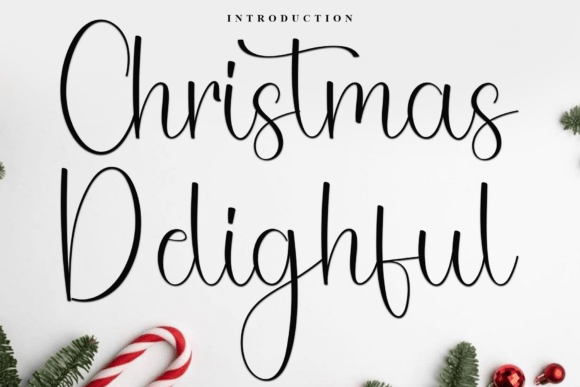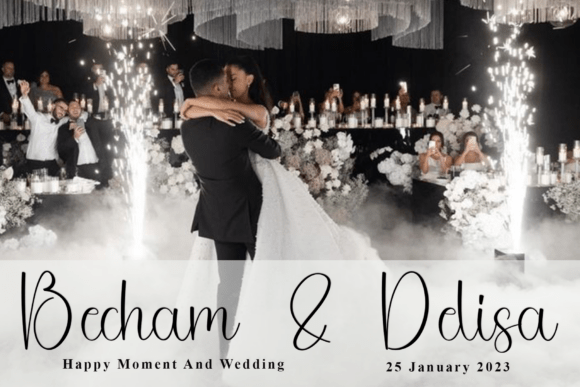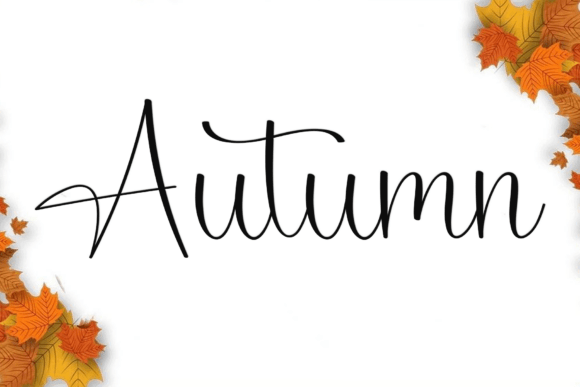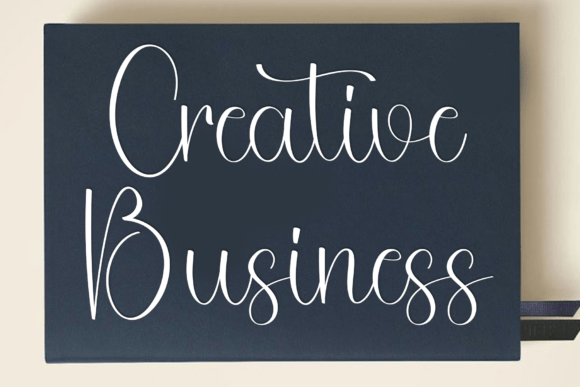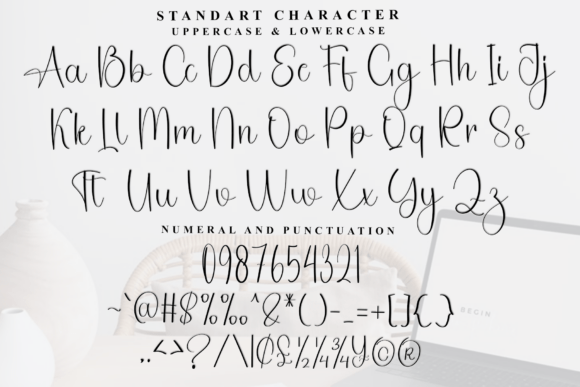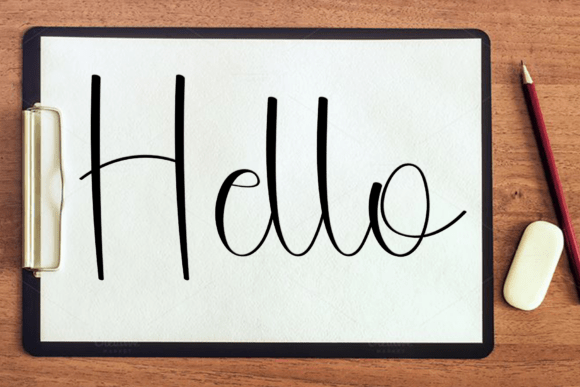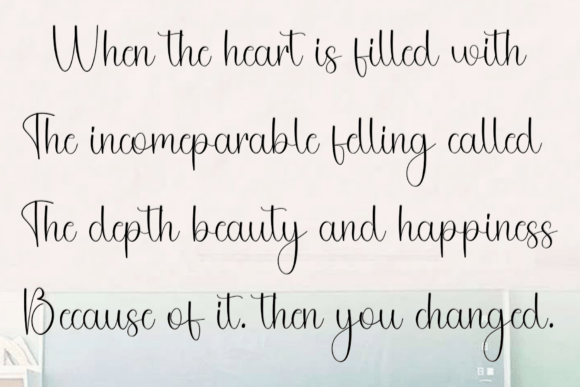
Get Ready to Spread Holiday Cheer with the Christmas Delighful Font
As the snowflakes start to fall and the festive lights twinkle around us, there’s something magical about the holiday season. You’re probably brainstorming ideas for your Christmas card design, gift tags, or maybe even a festive social media post. The right font can make all the difference in capturing the essence of this special time of year. This is where the Christmas Delighful Font comes in – a beautiful and eye-catching typeface that will add a touch of warmth and personality to your creations.
This versatile font is designed to be meaningful and easy to use, making it perfect for designers who want to add a unique touch to their projects. With its distinctive strokes and natural style, the Christmas Delighful Font is sure to be a hit with audiences across different artistic and creative fields.
Christmas Delighful Font Key Features
- Unique Characteristics: The Christmas Delighful Font features a unique blend of traditional and modern design elements, including intricate patterns, ornaments, and festive motifs, making it perfect for holiday-themed designs.
- Font Style: The font is available in a single style, but it offers a range of weights and ornaments, allowing users to create a wide variety of designs and effects.
Designer Review: Christmas Delighful Font
I was excited to dive into the Christmas Delighful Font, and overall, I was not disappointed. Here’s a breakdown of what works well and what could be improved.
- The font’s festive feel is perfect for holiday-themed projects. The designer has successfully captured the essence of Christmas in this font.
- The variety of characters, including ornaments and decorations, adds a nice touch to the overall design.
- The font’s legibility is good, making it suitable for both display and body text.
- The character set is not as extensive as I would have liked. Some special characters are missing, which could be a limitation for certain projects.
Overall, the Christmas Delighful Font is a great addition to any holiday-themed project. While it has some limitations, its festive feel and variety of characters make it a worthwhile investment. With some additional development, this font has the potential to become a top choice for designers and artists.
Practical Application Guide for Christmas Delighful Font
For the most out of Christmas Delighful Font, use it sparingly and in combination with other festive elements. Experiment with different font sizes and colors to create a visually appealing design. Consider pairing the font with bold, bright colors to create a festive atmosphere.
Christmas Delighful Font is ideal for creating holiday-themed designs, such as greeting cards, gift tags, and social media posts. It’s also suitable for designing festive packaging, flyers, and posters.